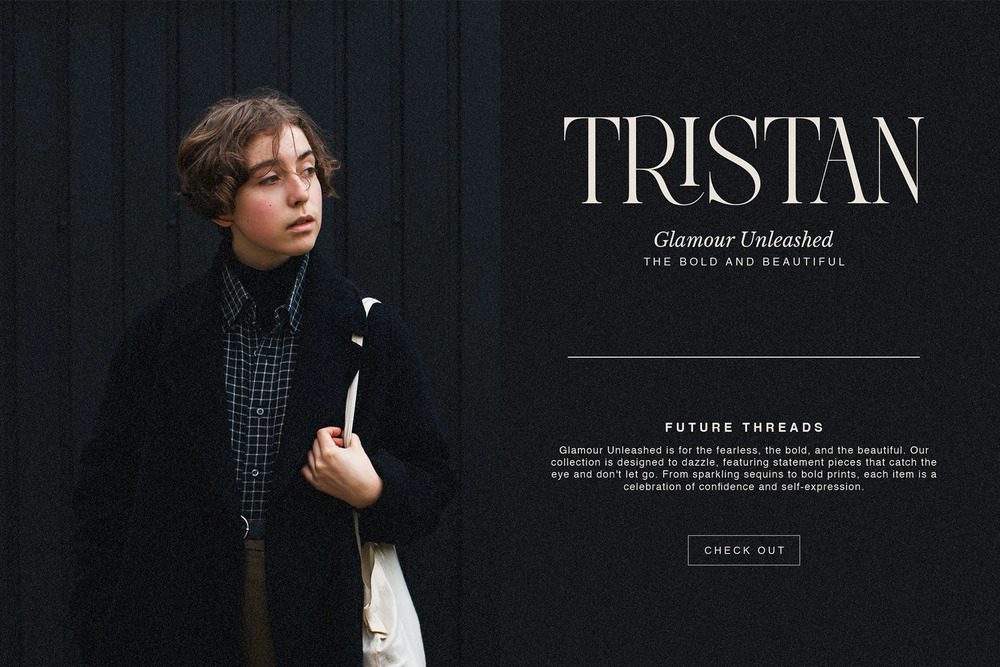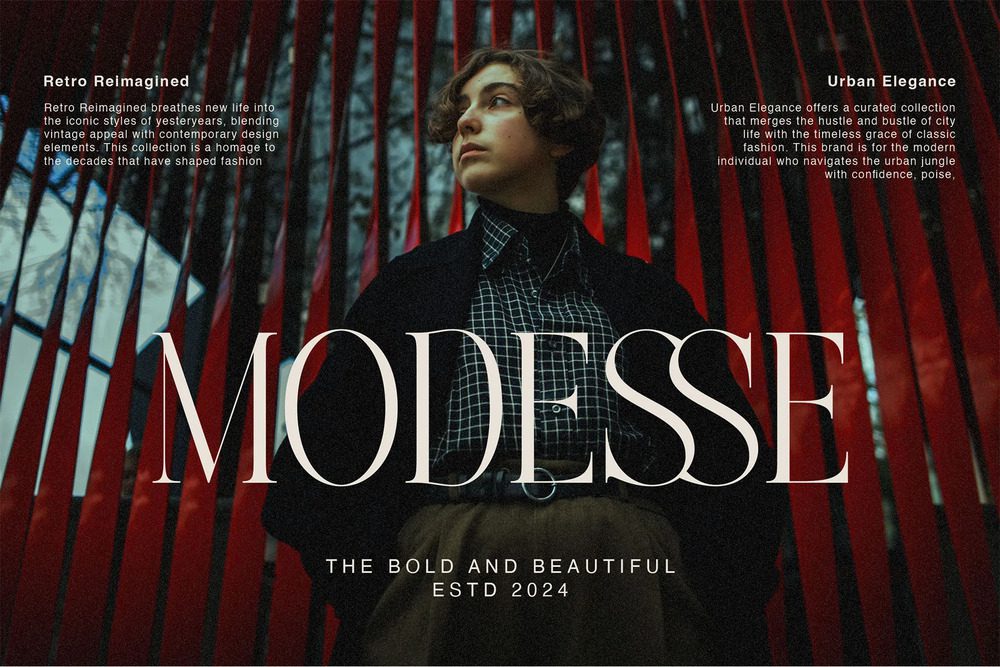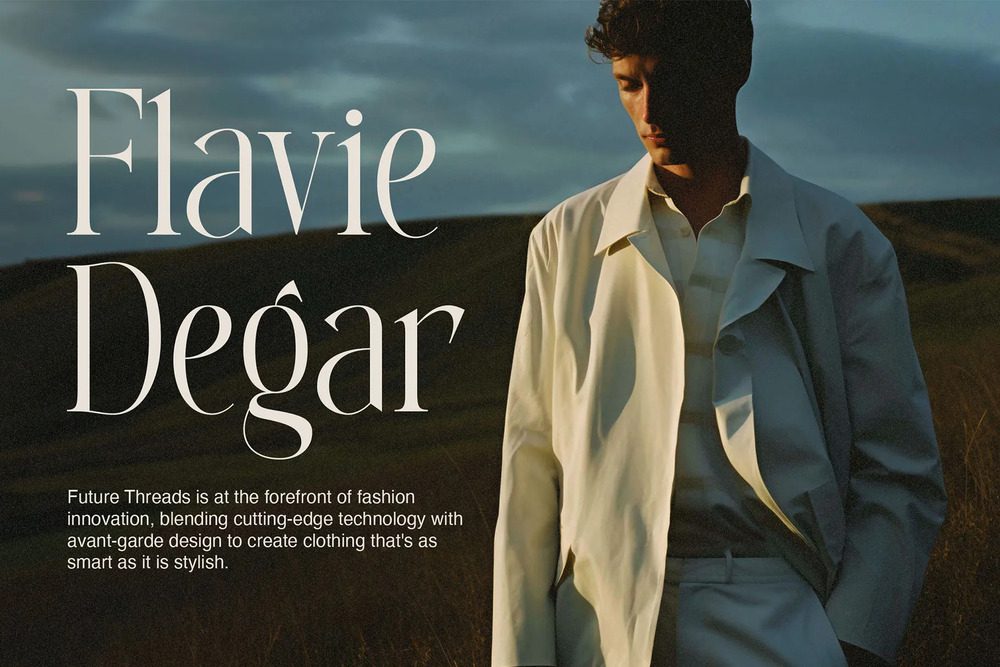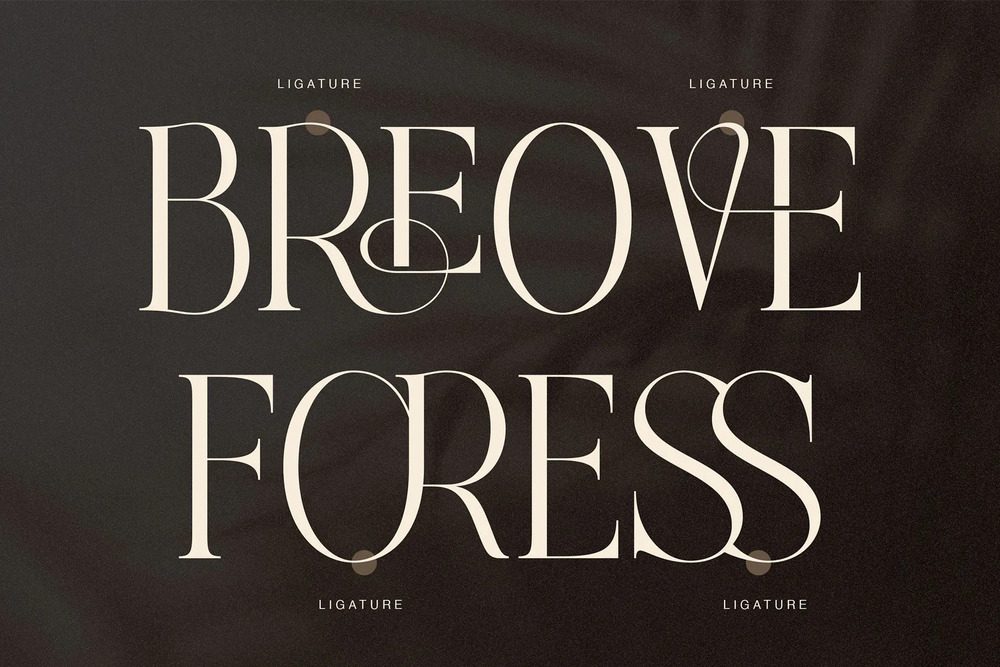
Avelire Font
Avelire Font with Ligature styles perfect for branding, logos, invitations, masterheads and more. Based on our imagination, we tried to brainstorm and created this font to make this idea come true. This is perfect for BRANDS and LOGO DESIGNS. You will get a classy, ​​elegant and of course unique logo with this font.